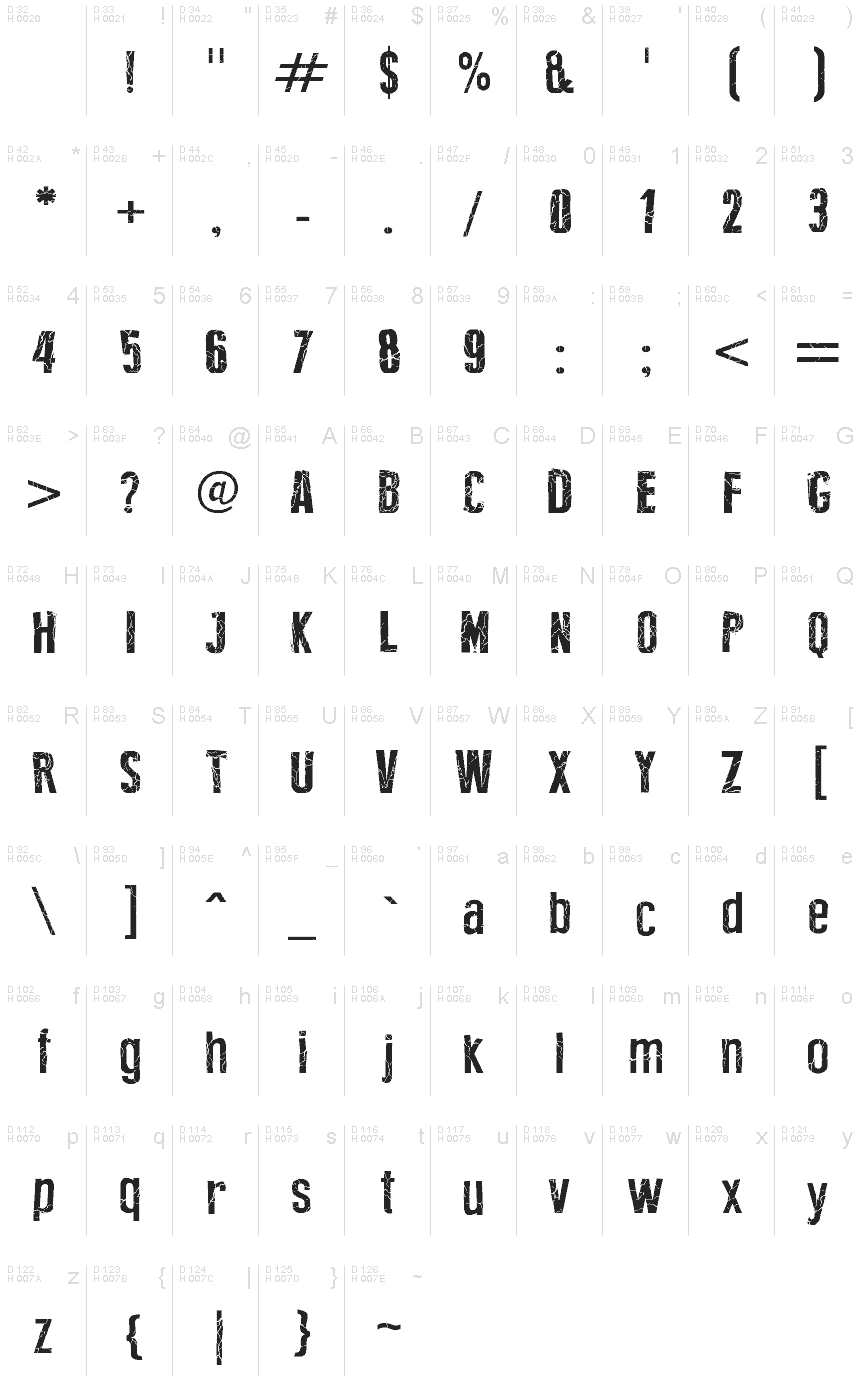
Broken Type
Broken Type font by Galdino Otten Fonts is a display font with an eroded and distressed style. It is rugged in nature, boasts an aged appearance, has a clear urban aesthetic, and adopts a condensed body width. Overall, the glyphs are difficult to grasp at first but once obtained make for interesting designs paired with other script elements.
Possible use cases include newspaper designs, websites, mobile applications, packaging design for various products such as coffee or chocolate. Create artistic alphabet posters for kids or adults alike. Use it in magazine cover designs; retro poster recreations; logos of rock bands; stamp art; on greeting and invitation card covers as well as bookmarks.